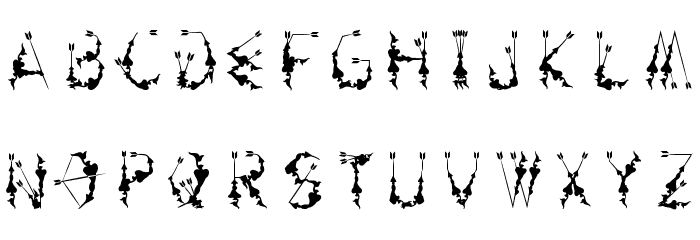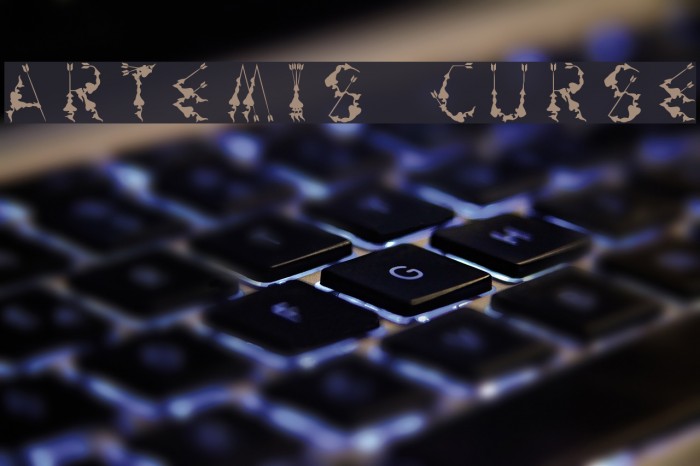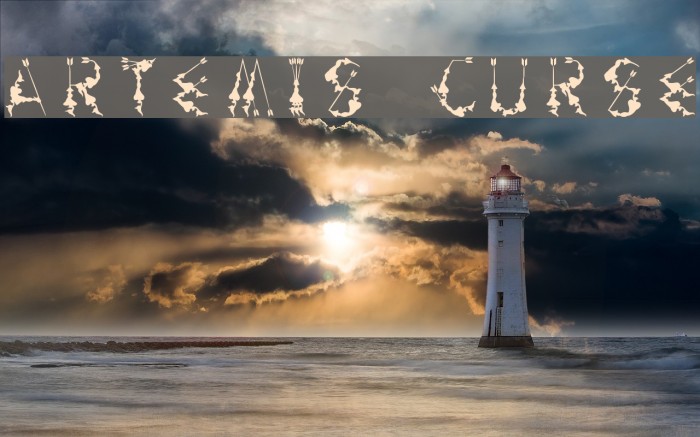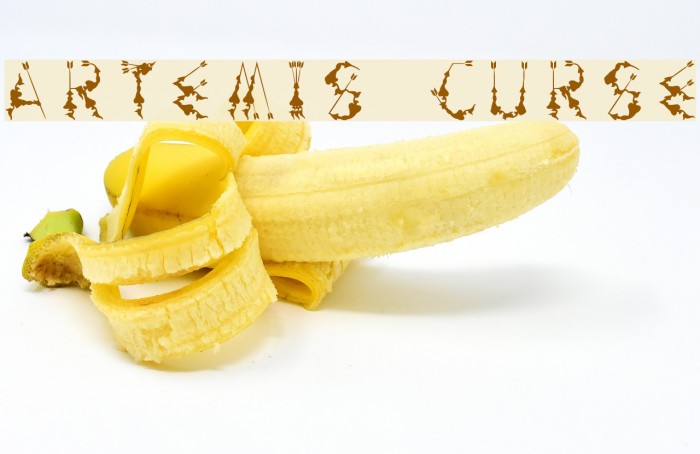
Artemis Curse Font
This font features a unique and intricate design, incorporating elements of arrows and geometric shapes to form each character. The uppercase and lowercase letters are constructed with a series of arrow motifs, giving the font a dynamic and adventurous feel. The characters are bold and striking, with a decorative style that makes them stand out. The font's design is consistent across all letters, maintaining a cohesive look that is both artistic and functional. The use of arrows and lines creates a sense of movement and direction, adding to the overall aesthetic appeal. This font is ideal for projects that require a bold and creative touch, offering a distinctive look that captures attention.
A bold, decorative font with arrow motifs and geometric elements.
- Proposed Projects: Ideal for posters, book covers, video game titles, and branding that requires a bold, adventurous look.